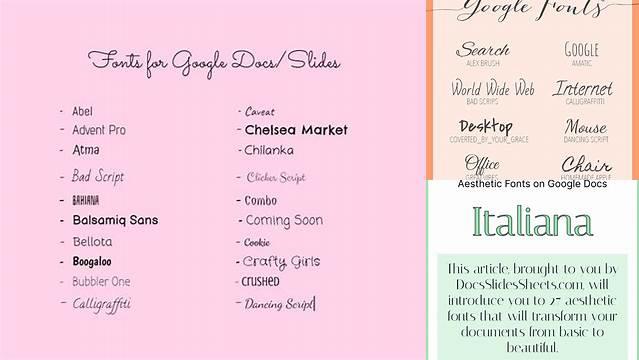
Aesthetic Fonts For Google: Generate Cool Text!
Hey guys! Ever wanted to spice up your Google Docs, Slides, or even your social media posts with some super cool and unique fonts? Well, you've come to the right place! In this article, we're diving deep into the world of aesthetic fonts and how you can generate them for use with Google and beyond. We'll explore a bunch of different options, from online generators to browser extensions, and even talk about how to find the perfect font to match your vibe. So, buckle up and get ready to transform your text from blah to amazing!
1. What are Aesthetic Fonts?
Let's start with the basics. What exactly do we mean by "aesthetic fonts"? Well, it's a pretty broad term, but generally, it refers to fonts that are visually appealing and stand out from the standard, everyday fonts like Arial or Times New Roman. Think of fonts that have a certain style, a unique flair, or just an overall cool vibe. These fonts can range from elegant and sophisticated scripts to playful and quirky display fonts, and everything in between. When you're looking to make a statement, aesthetic fonts are your best friend!
In essence, aesthetic fonts are all about visual appeal and distinctiveness. They go beyond the typical, functional fonts used for everyday writing and aim to evoke a specific mood, feeling, or style. These fonts often feature unique characteristics such as unusual letterforms, decorative elements, or stylistic variations that set them apart. The use of aesthetic fonts can significantly enhance the overall look and feel of your projects, whether it's a presentation, a social media post, or a document.
For instance, a flowing cursive font might convey elegance and sophistication, while a bold, sans-serif font could communicate modernity and strength. Understanding the nuances of different font styles can help you choose the perfect font to match your message and target audience. So, if you're looking to make a lasting impression, consider exploring the diverse world of aesthetic fonts. They're a fantastic way to add personality and visual interest to your work.
2. Why Use Aesthetic Fonts in Google?
Why bother using aesthetic fonts in Google, you ask? Well, the answer is simple: to make your work stand out! Let's face it, default fonts can be a bit… boring. Using aesthetic fonts adds a touch of personality and visual appeal to your documents, presentations, and other projects. Imagine jazzing up your Google Slides with a funky font that grabs your audience's attention, or making your Google Docs look more professional with an elegant script. The possibilities are endless!
Moreover, using aesthetic fonts can help you reinforce your brand identity or the theme of your project. If you're creating a presentation for a specific audience, choosing a font that resonates with their tastes can make your message more impactful. For instance, a playful font might be perfect for a presentation aimed at children, while a more formal font could be suitable for a business proposal. The right font can communicate a lot more than just the words themselves; it can convey the tone, style, and even the personality of your work.
In addition to enhancing visual appeal, aesthetic fonts can also improve readability in certain contexts. For example, a well-chosen display font can make headlines and titles more prominent, guiding the reader's eye and making your content easier to navigate. By carefully selecting fonts that complement your content, you can create a more engaging and effective communication experience. So, next time you're working on a Google project, don't underestimate the power of aesthetic fonts to elevate your work.
3. Online Aesthetic Font Generators
Okay, so you're sold on the idea of using aesthetic fonts, but where do you find them? One of the easiest ways is to use an online aesthetic font generator. These handy tools let you type in your text, and then they'll generate a bunch of different font styles for you to choose from. It's like magic, but with fonts! Some popular options include LingoJam, Fancy Text Generator, and Cool Text Generators. Just type, browse, and copy-paste your favorite style. Easy peasy!
Online aesthetic font generators are incredibly convenient because they offer a wide range of font styles at your fingertips without requiring you to download or install anything. This makes them perfect for quick experiments and finding the right font for your project. Many of these generators also provide options to customize your text further, such as adding symbols, emojis, or decorative elements. This level of flexibility allows you to create truly unique and eye-catching text that stands out.
Furthermore, these generators often come with a preview feature, so you can see how your text will look in different fonts before you copy it. This can save you a lot of time and effort, as you can quickly narrow down your options and choose the font that best suits your needs. Whether you're looking for a playful, elegant, or futuristic font, online generators provide a vast selection to explore. So, if you're eager to add some flair to your text, these tools are an excellent place to start.
One of the key advantages of using the search feature in Google Fonts is its ability to quickly narrow down your font options based on specific styles. Instead of browsing through hundreds of fonts, you can simply type in a keyword that describes the style you're looking for, such as